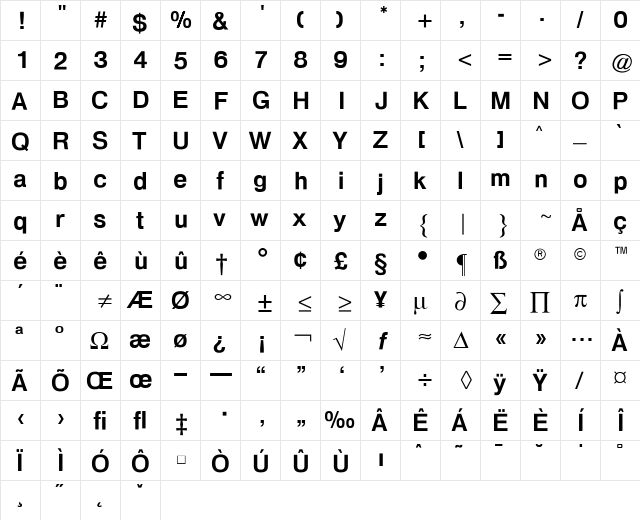
CgHeldustryDm Regular Font Preview
CgHeldustryDm Regular
CgHeldustryDm Regular Font Details
Design Context for CgHeldustryDm Typeface
CgHeldustryDm is a composed and adaptable typeface that performs quietly and consistently across a wide range of design contexts.